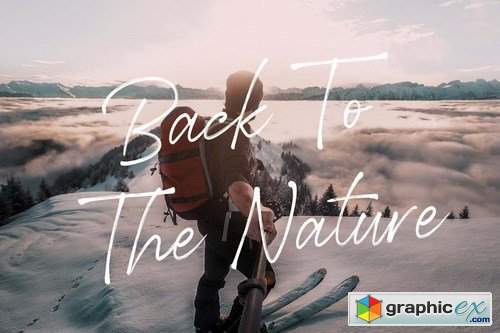
Betterline
Betterline Font is elegant signature font. Perfect for any purpose like trademark, logo name, photography, quotes and other. Make your signature more elegant and great